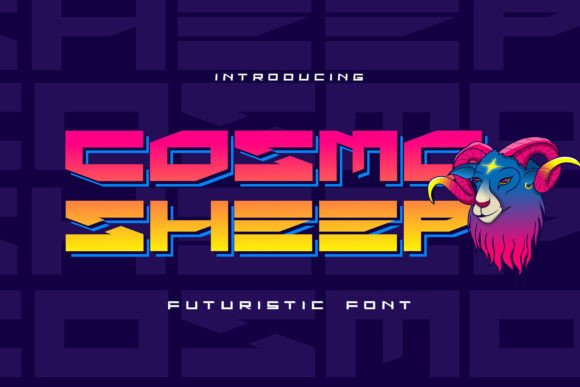
Brace yourselves, font enthusiasts and design visionaries, for an out-of-this-world font experience that will leave you breathless! Let us introduce you to Cosmo Sheep Font, a display font that is not just a font; it's a gateway to a world of limitless creativity. Dive into the realm of stickers and labels, where Cosmo Sheep Font reigns supreme, transforming your designs with its captivating allure.
Crafted with meticulous attention to detail by the talented Cikareotype, Cosmo Sheep Font is a visual masterpiece that dances on the edge of art and functionality. Stroke by stroke, this font breathes life into your creations, adding a dash of charm and a sprinkle of sophistication. Its playful and energetic vibe is a perfect match for those with a thirst for adventure and a desire to make a statement.
If you're yearning for a font that speaks volumes without uttering a word, Cosmo Sheep Font is your answer. Its dynamic appearance and modern feel make it the ideal choice for projects that demand a sleek and contemporary touch. Picture this: your designs adorned with Cosmo Sheep Font, commanding attention and sparking conversations wherever they go.
And the best part? Cosmo Sheep Font isn't just visually stunning; it's also incredibly versatile, effortlessly adapting to a myriad of design projects. Whether you're creating vibrant stickers that bring joy to everyday objects or crafting stunning labels that elevate your products to new heights, Cosmo Sheep Font is your trusty companion, helping you turn your creative visions into tangible realities.
With Cosmo Sheep Font, the possibilities are as boundless as your imagination. Unleash your creativity and let this font guide you on a journey of self-expression and storytelling. It's time to make a bold statement, leave your mark on the world, and let your designs speak for themselves. Embrace Cosmo Sheep Font today and embark on a creative adventure that will redefine your design horizons.